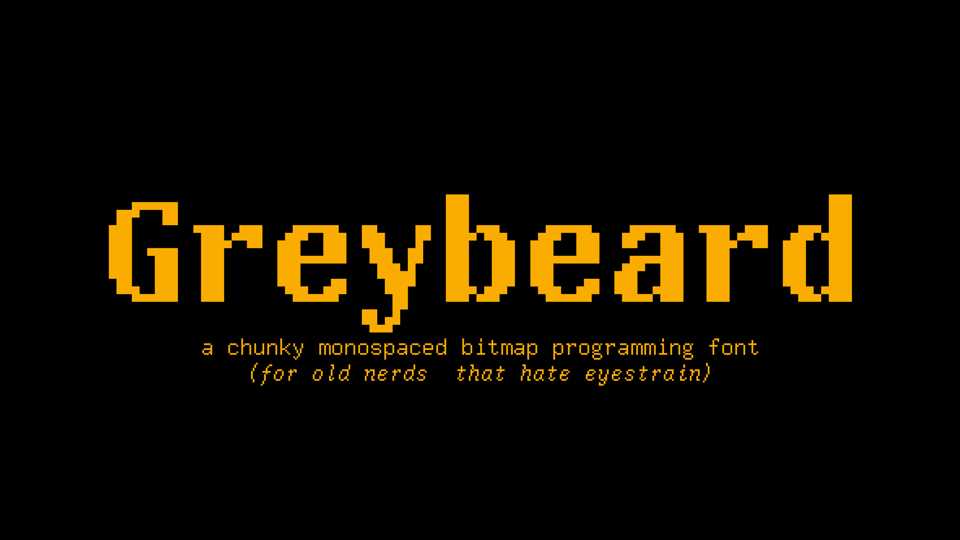
Download Greybeard font, a chunky monospaced bitmap programming typeface for all you pixel-perfect nerds who don’t like eyestrain. It’s mostly a port of UW ttyp0 with a few tweaks.
Designer: Andy Walker